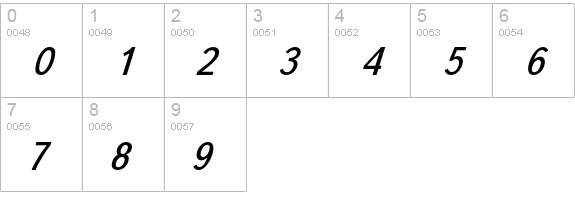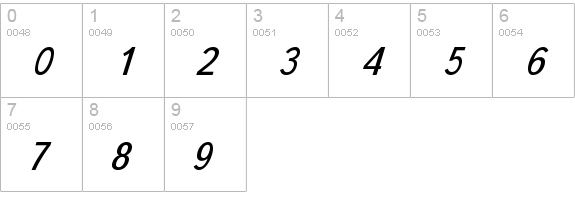
PM TextBook Italic Cyrillic Font Details
PM TextBook Italic Cyrillic is a distinctive, italic variant in the PM typeface family \xE2\x80\x94 well suited to design and typography projects.
Introducing PM TextBook Italic Cyrillic font, a versatile and elegant typeface that effortlessly blends timeless style with modern functionality. With its graceful curves and balanced letterforms, this font is perfect for a wide range of design projects, from editorial layouts to branding and beyond. What sets PM TextBook Italic Cyrillic font apart is not just its impeccable design, but also the fact that it is freely available to download at FontsMarket.com. Yes, you heard it right – this exceptional font comes at no cost, making it an incredible asset for designers, students, and anyone in need of a high-quality Cyrillic typeface. Whether you're working on a professional project or simply looking to enhance your personal creations, the PM TextBook Italic Cyrillic font provides the perfect blend of readability and elegance. Its italicized style adds a touch of sophistication, making it ideal for conveying a sense of authority and refinement. The extensive character set of PM TextBook Italic Cyrillic font ensures that you have all the tools you need to bring your creative visions to life. From uppercase and lowercase letters to numerals, punctuation marks, and special characters, this font has it all. Its seamless integration with various design software platforms allows for easy and hassle-free implementation. In addition to its stunning aesthetics and versatility, PM TextBook Italic Cyrillic font also offers exceptional legibility, ensuring that your message is conveyed with clarity and impact. Whether you're designing a book cover, a poster, or a website interface, this font ensures that your content is effortlessly readable, even in small sizes. So don't miss out on the opportunity to enhance your design toolkit with the PM TextBook Italic Cyrillic font. Download it for free today at FontsMarket.com and experience its unmatched beauty, versatility, and professional quality.